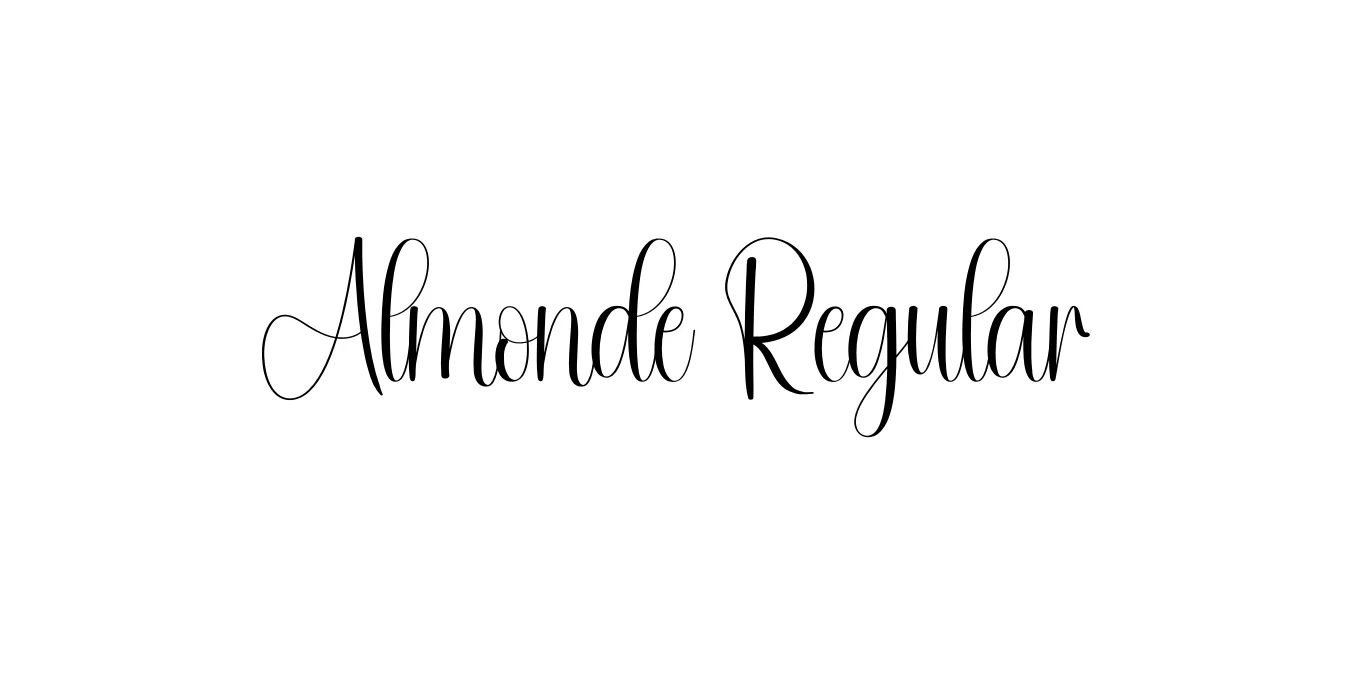
Almonde Regular
Designed by GlyphStyle
Almonde Regular is a sophisticated and fluid script typeface designed to bring a touch of elegance and natural handwriting to digital typography. Created by the designers at GlyphStyle, this font focuses on smooth transitions between characters and expressive strokes that mimic high-end calligraphy. It was developed to provide designers with a versatile tool for creating romantic, luxury, and artistic layouts that require a personalized, human touch.
The font is characterized by its rhythmic loops and delicately balanced weights, making it highly readable while maintaining its decorative flair. Almonde is particularly popular for projects that demand a sense of refinement, such as wedding invitations, boutique branding, and editorial headers. With its comprehensive set of alternates and ligatures, it allows for creative flexibility, ensuring that every design feels unique and professionally crafted.
Almonde Regular Best Uses
Ideal for logos and corporate identities seeking a refined and personal aesthetic.
Perfect for invitations, save-the-date cards, and romantic event programs.
Excellent for creating eye-catching quotes and stylized headers for Instagram or Pinterest.
Enhances the visual appeal of cosmetics, jewelry, and luxury goods packaging.